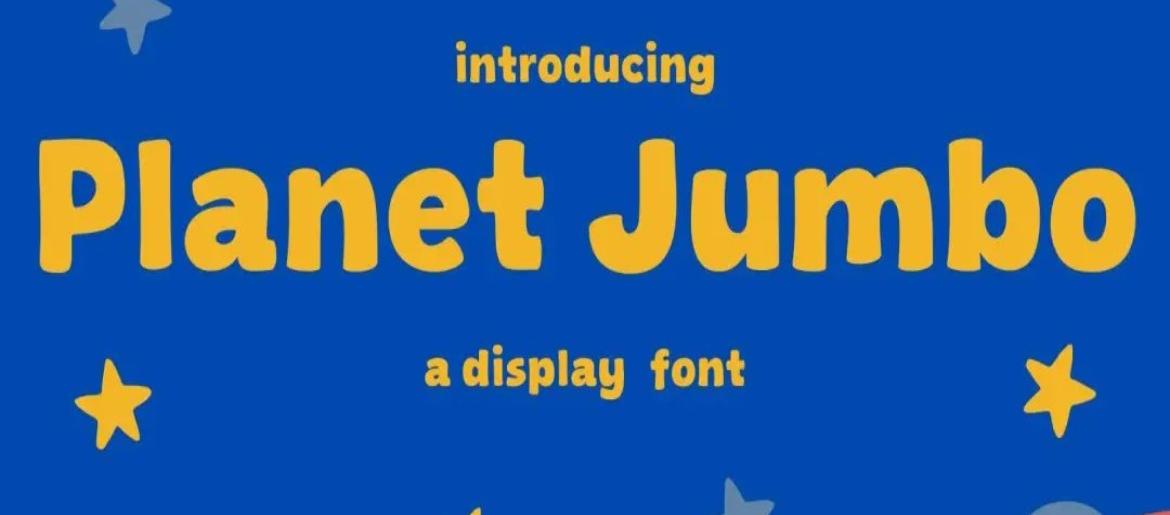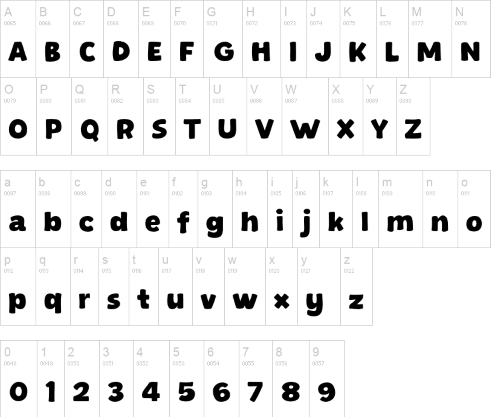
Planet Jumbo Font
Planet Jumbo Font is a bold, playful display typeface designed for big, eye-catching visuals. Featuring both uppercase and lowercase letters along with numbers and punctuation, it offers full flexibility for creative layouts. Available in TTF, OTF, and WOFF formats, Planet Jumbo is perfect for logos, posters, kids’ designs, packaging, and fun, energetic branding.
➤ Font Name: Planet Jumbo
➤ Designer: MJType
➤ Style: Cartoon